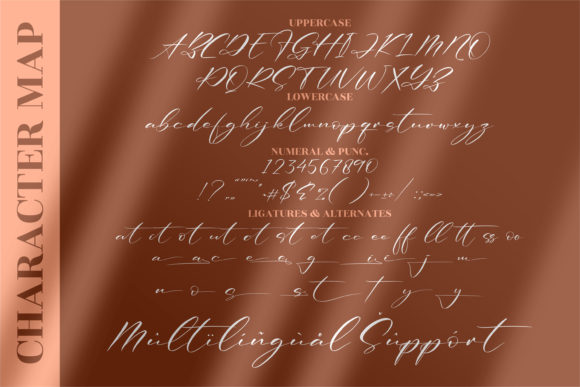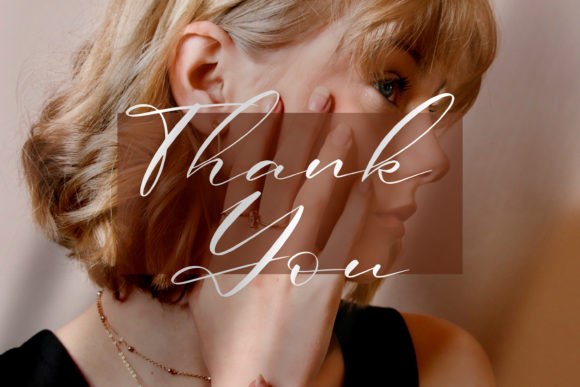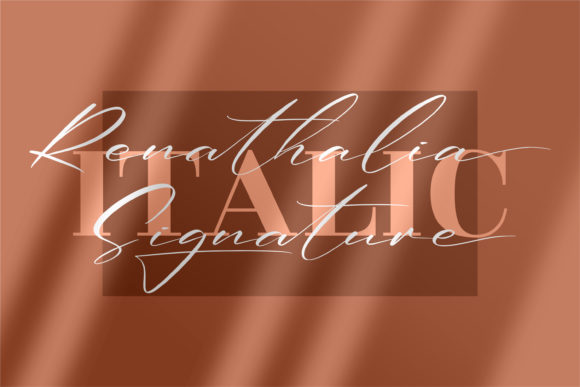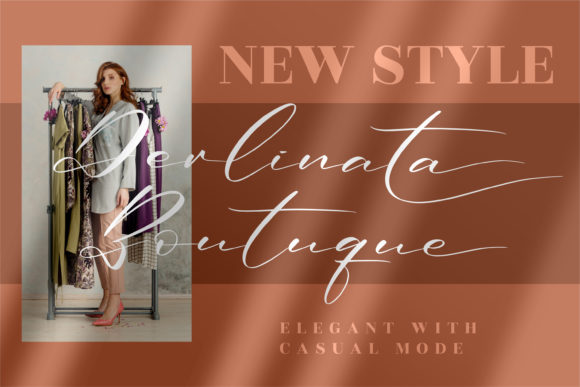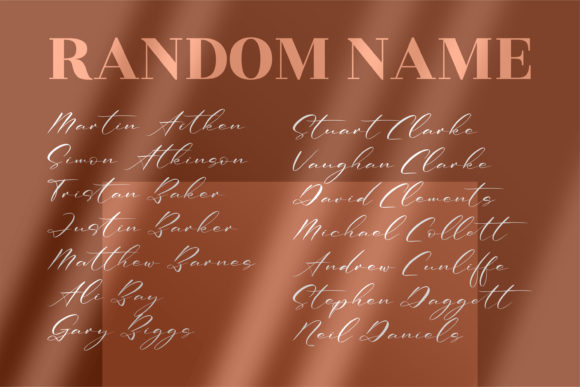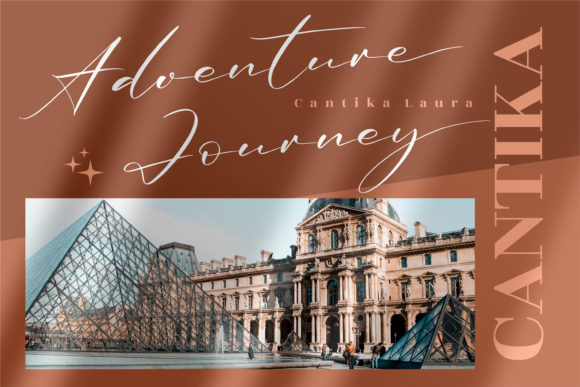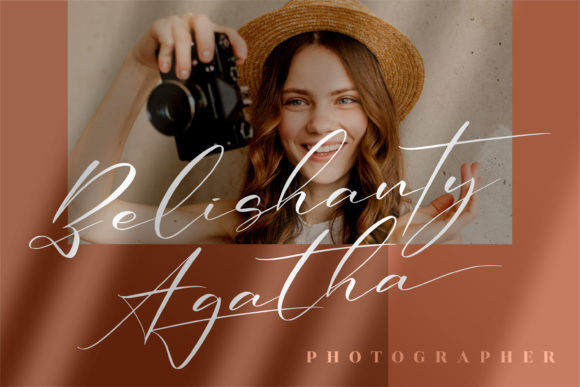
About Renathalia Signature Font
Renathalia Signature is a lovely script font featuring charming, playful characters that seem to dance along the baseline. Add this font to your most creative ideas, and notice how it makes them stand out! Renathalia Signature is PUA encoded which means you can access all of the glyphs and swashes with ease!